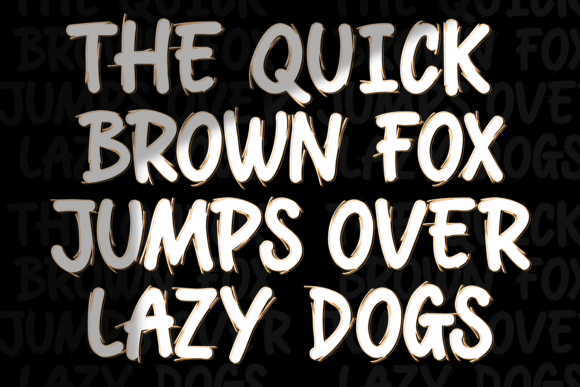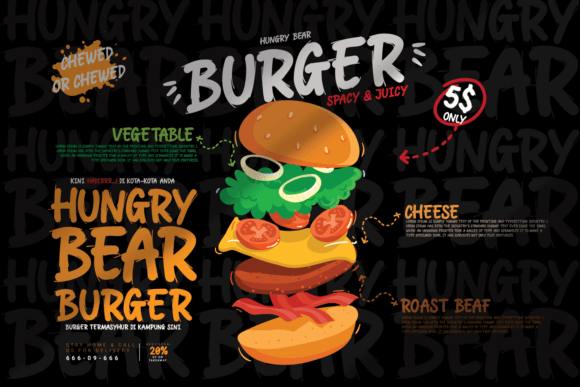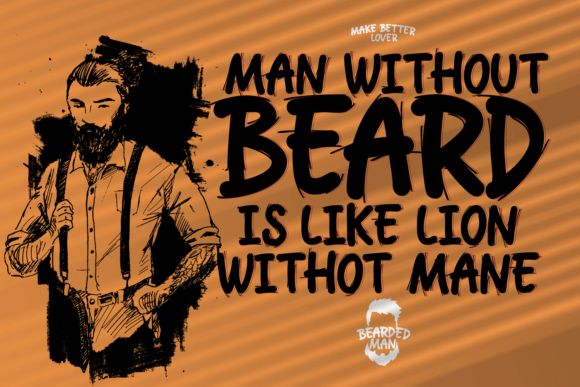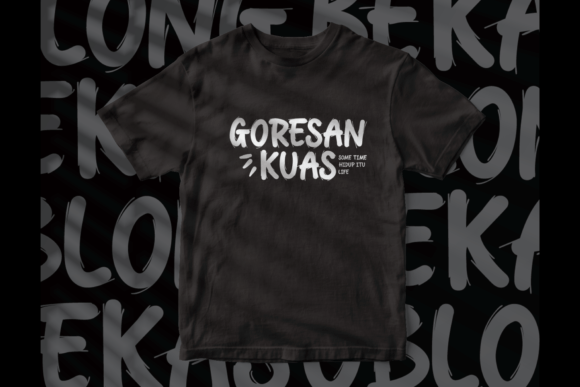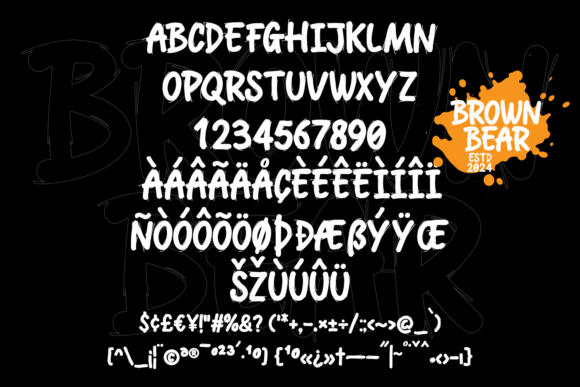
Unlock the Whimsy of Your Designs with the Brown Bear Font
Have you ever stared at a blank page, struggling to find the perfect font to bring your creative vision to life? We’ve all been there. But what if you could tap into a world of charm and whimsy with just a few clicks? Enter the Brown Bear Font, a delightful display font that’s sure to levitate your creative journey.
This enchanting font is more than just a pretty face – it’s carefully crafted through sketch-inspired design to evoke the playful spirit of an animated ursine character. With its versatility and charm, the Brown Bear Font is a valuable addition to any designer’s toolkit, offering a unique touch to your projects and adding a dash of fun to your palette.
Brown Bear Font Key Features
- Unique Characteristics: The font features a unique, hand-drawn style with subtle texture and imperfections, giving it a warm and organic feel.
- Character Set: The font includes a comprehensive character set, including uppercase and lowercase letters, numbers, punctuation, and special characters.
Brown Bear Font Review
Overall, I’m quite impressed with the Brown Bear Font! Here’s a rundown of what I like and what could be improved.
- Unique aesthetic: The Brown Bear Font has a distinctive look that sets it apart from other sans-serif fonts. It’s perfect for projects that need a bit of personality.
- Legibility: The font is highly legible, even at smaller sizes, making it a great choice for body text.
- Limited character set: The font only includes basic Latin characters, which might be a limitation for projects that require support for non-Latin scripts.
- No italic or bold variations: While the font is available in regular and bold weights, it would be nice to have italic and bold-italic variations for added flexibility.
Overall, I think the Brown Bear Font is a great choice for projects that need a unique and legible font. While it has some limitations, it’s a solid option for designers looking for a distinctive sans-serif font.
Getting the Most Out of the Brown Bear Font
To get the most out of the Brown Bear Font, use it for:
- Children’s books and educational materials
- Outdoor and nature-themed designs
- Whimsical and playful branding
The Brown Bear Font is commonly used for:
- Body text for children’s books and educational materials
- Branding and logos for outdoor and nature-themed businesses
Alternatives to Brown Bear Font for Designers
Brown Bear Font is a popular font known for its rustic and vintage feel. However, there are several alternatives that designers can use depending on their specific project needs.
Pacifico is a beautiful, elegant script font that exudes a relaxed, beachy vibe. It’s perfect for creating a warm and inviting atmosphere in branding, packaging, and advertising materials. Compared to Brown Bear Font, Pacifico has a more refined and sophisticated look.
Great Vibes is a handwritten font that captures the carefree spirit of the 1960s. It’s ideal for use in music, art, and cultural projects where a playful, laid-back feel is desired. In comparison to Brown Bear Font, Great Vibes has a more playful and expressive quality.
Alex Brush is a elegant script font that’s perfect for creating a sophisticated, high-end look. It’s suitable for use in branding, packaging, and advertising materials where a touch of luxury is desired. Compared to Brown Bear Font, Alex Brush has a more refined and polished appearance.